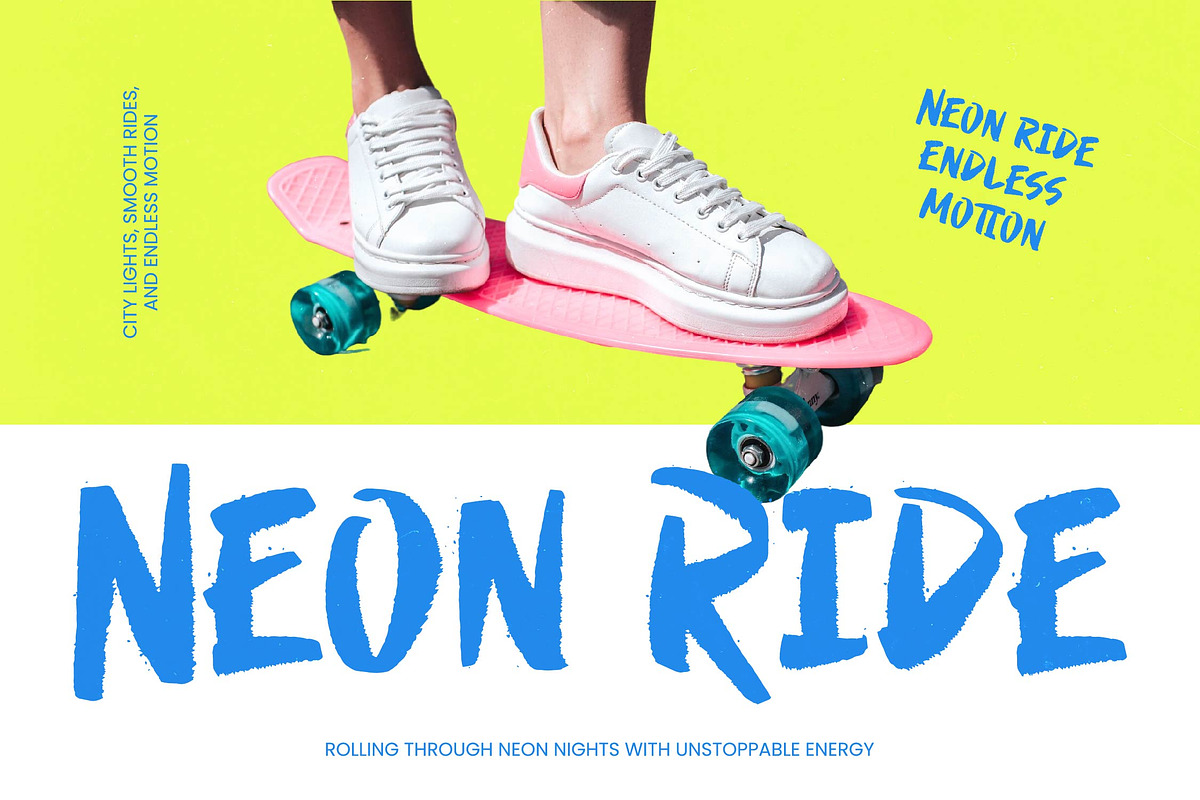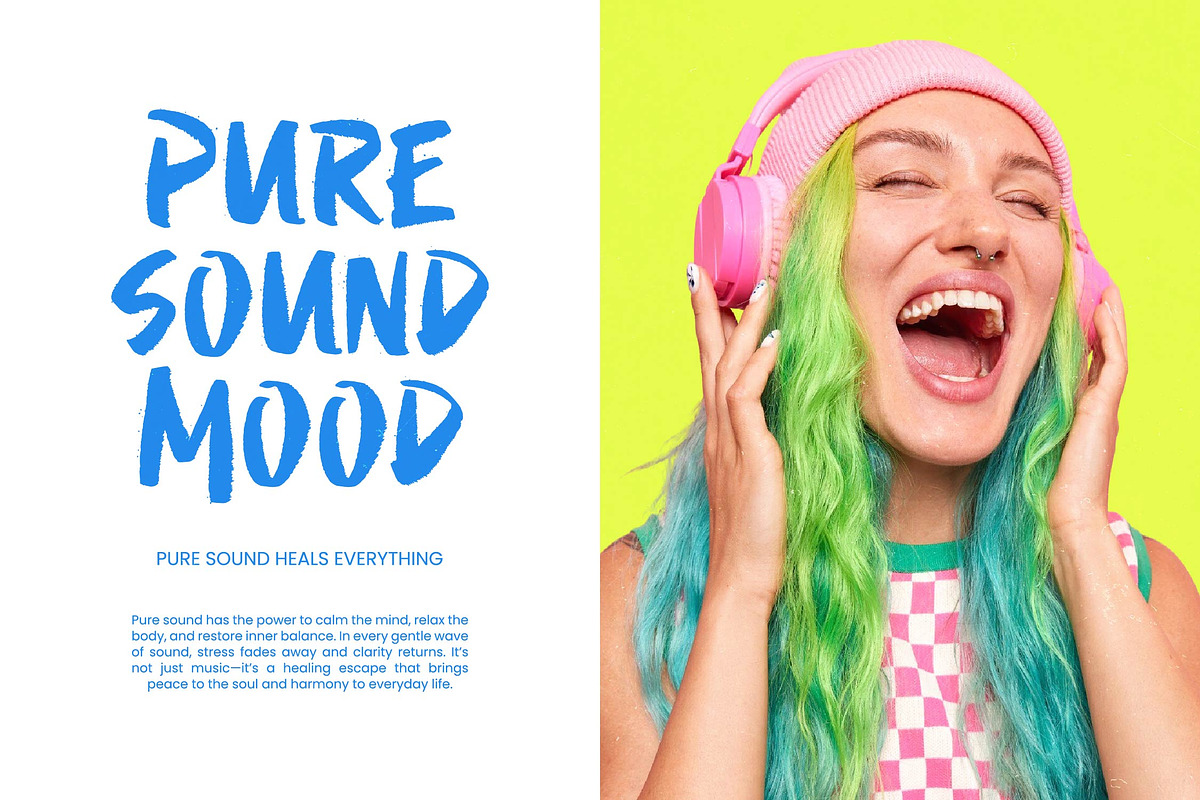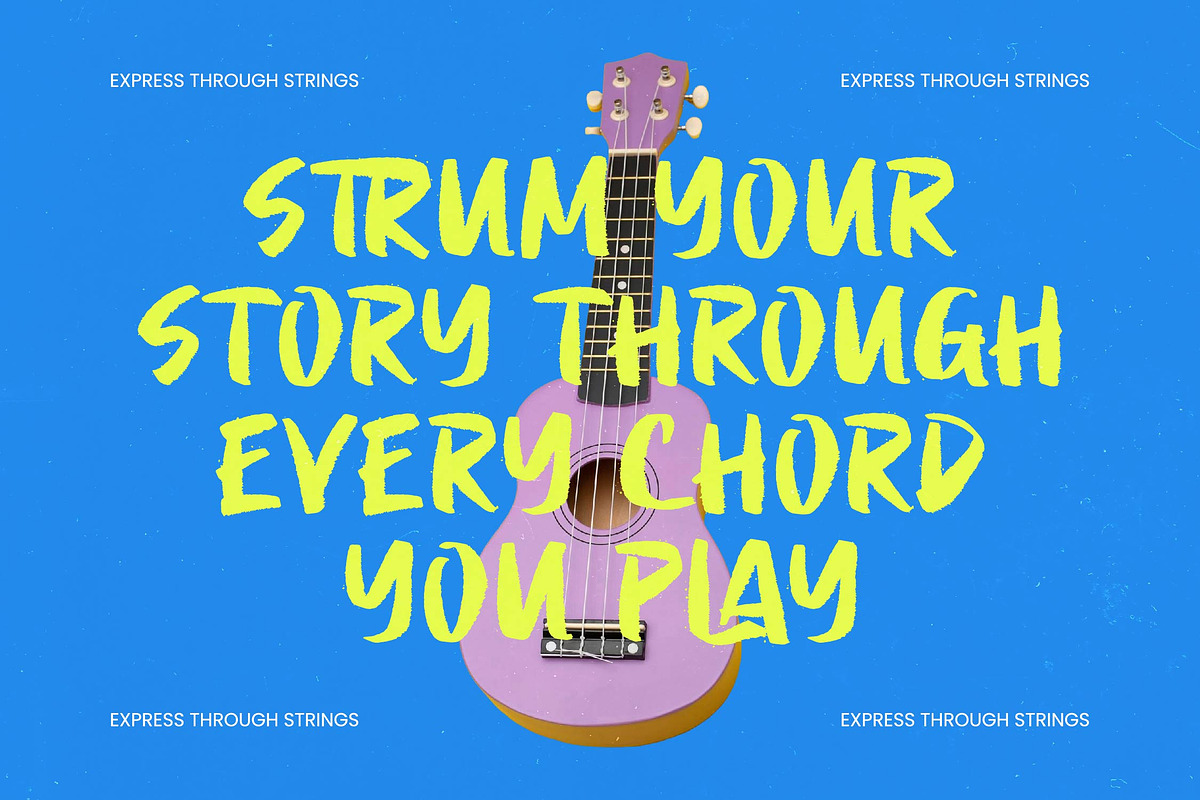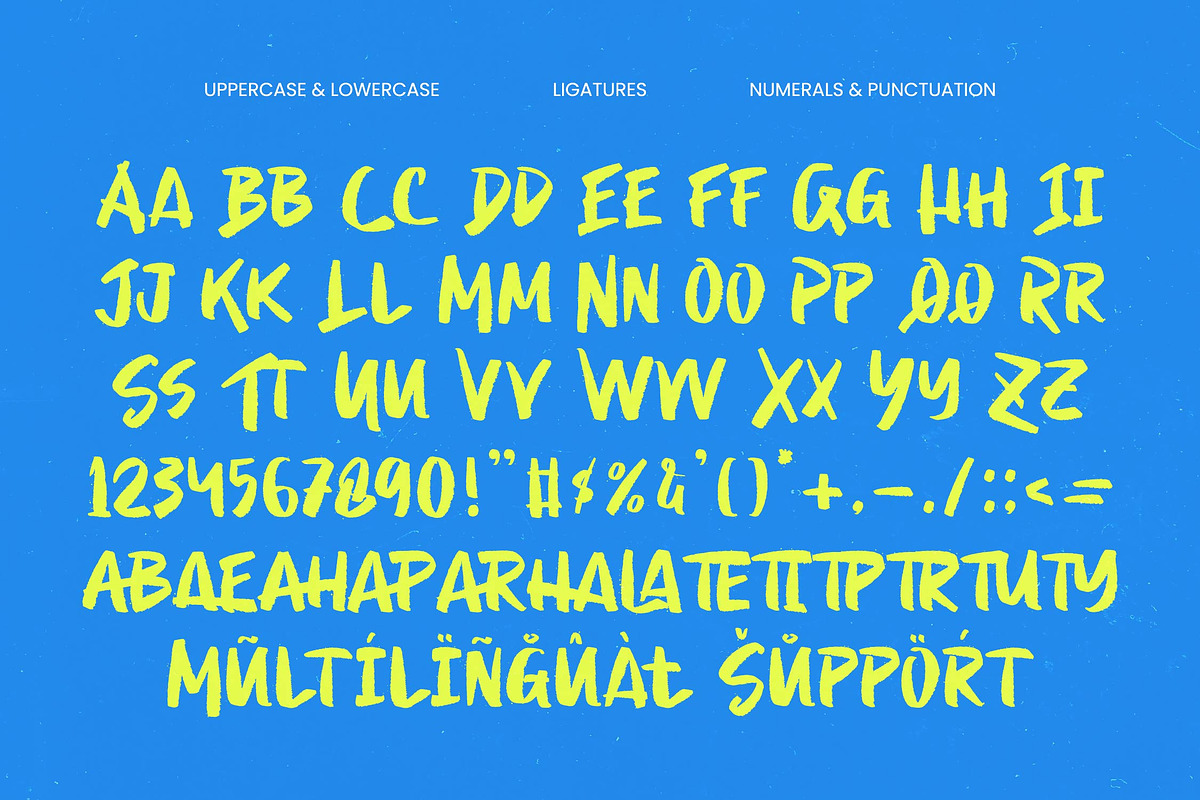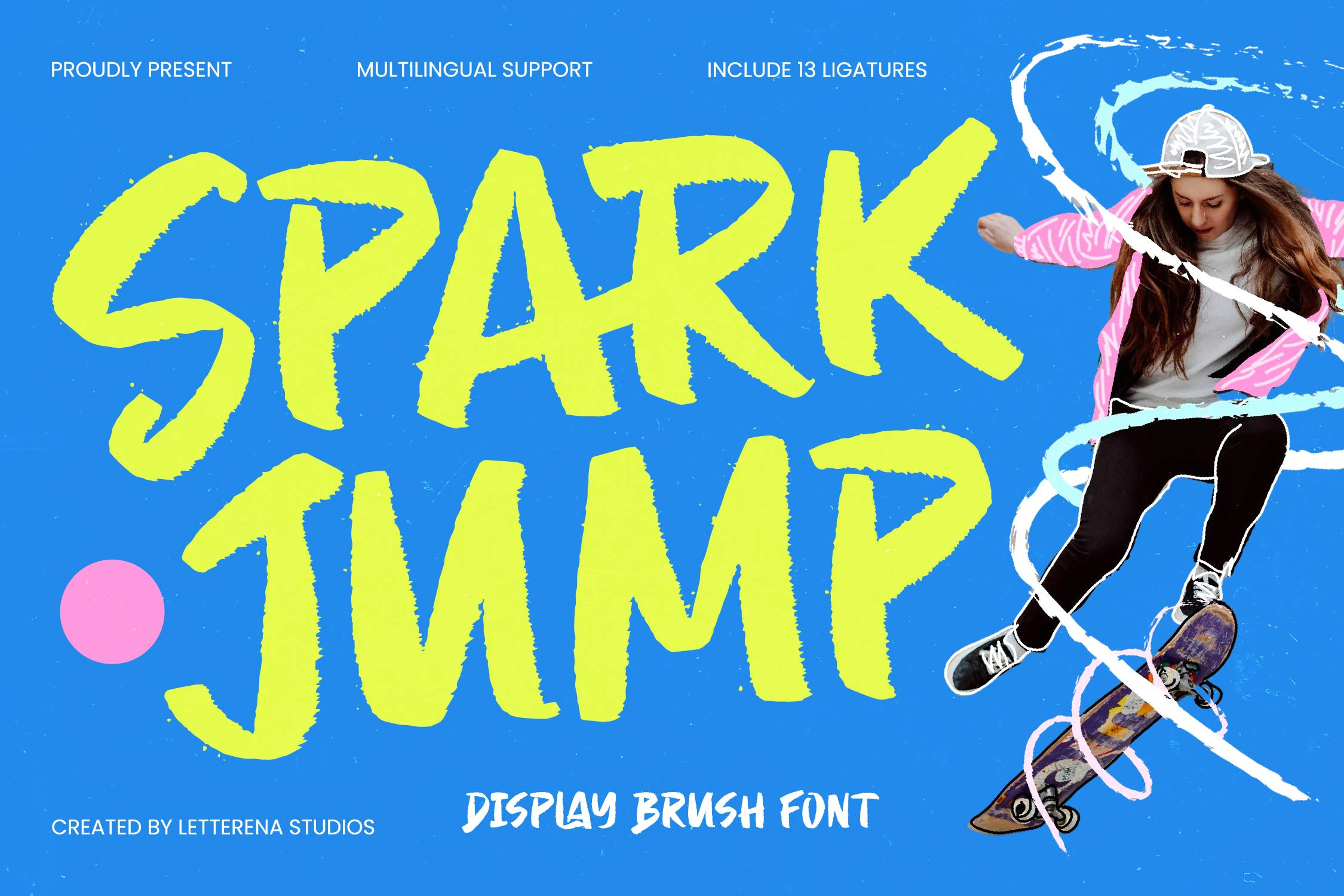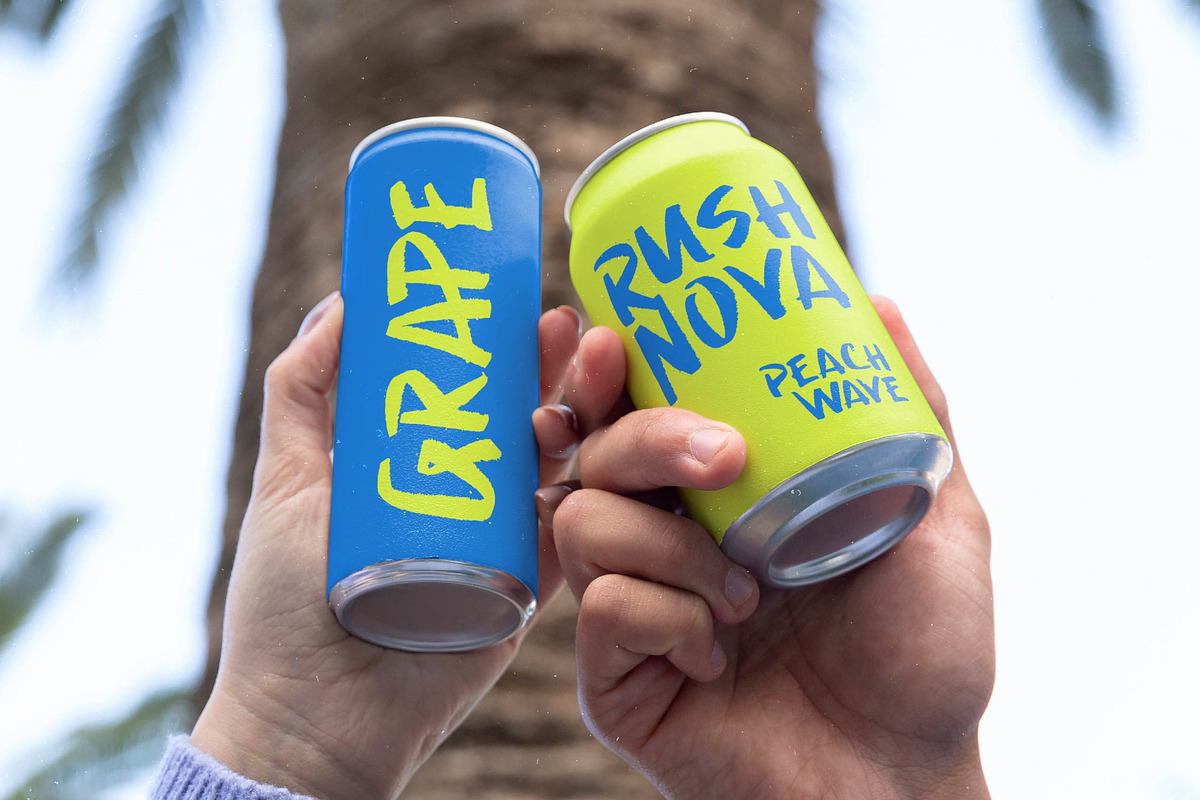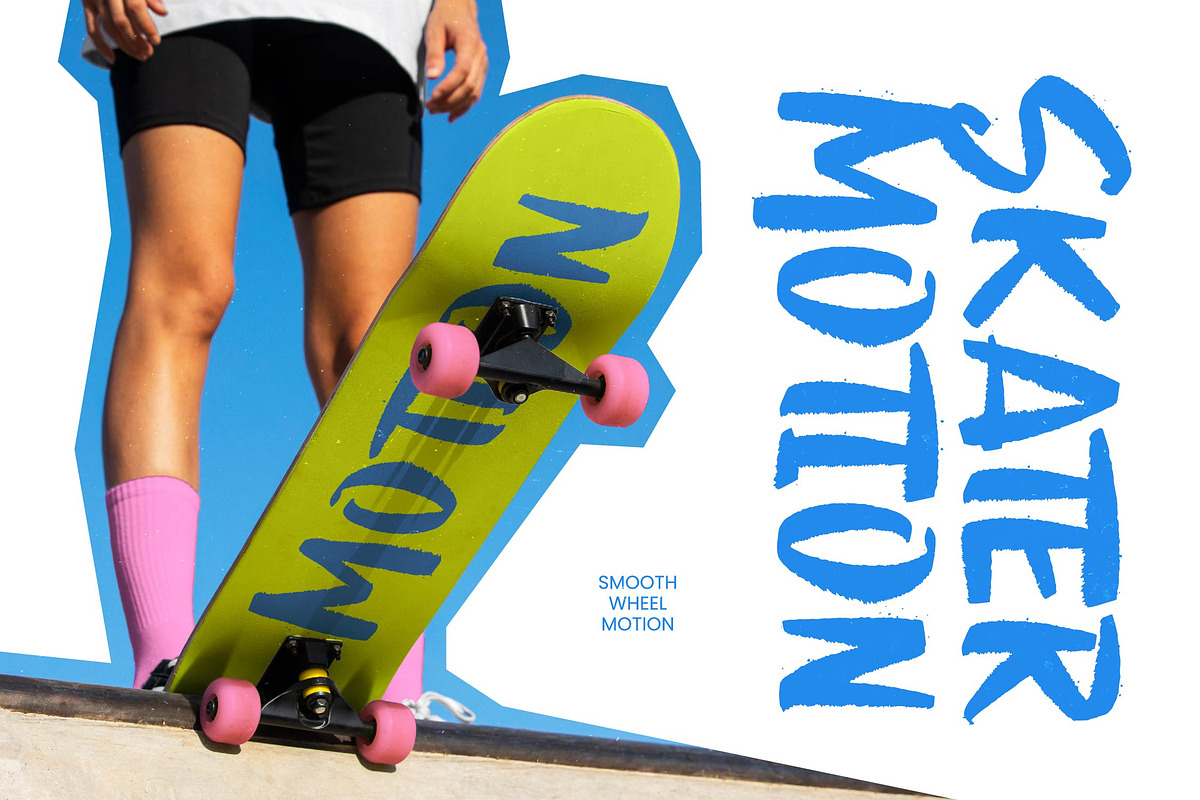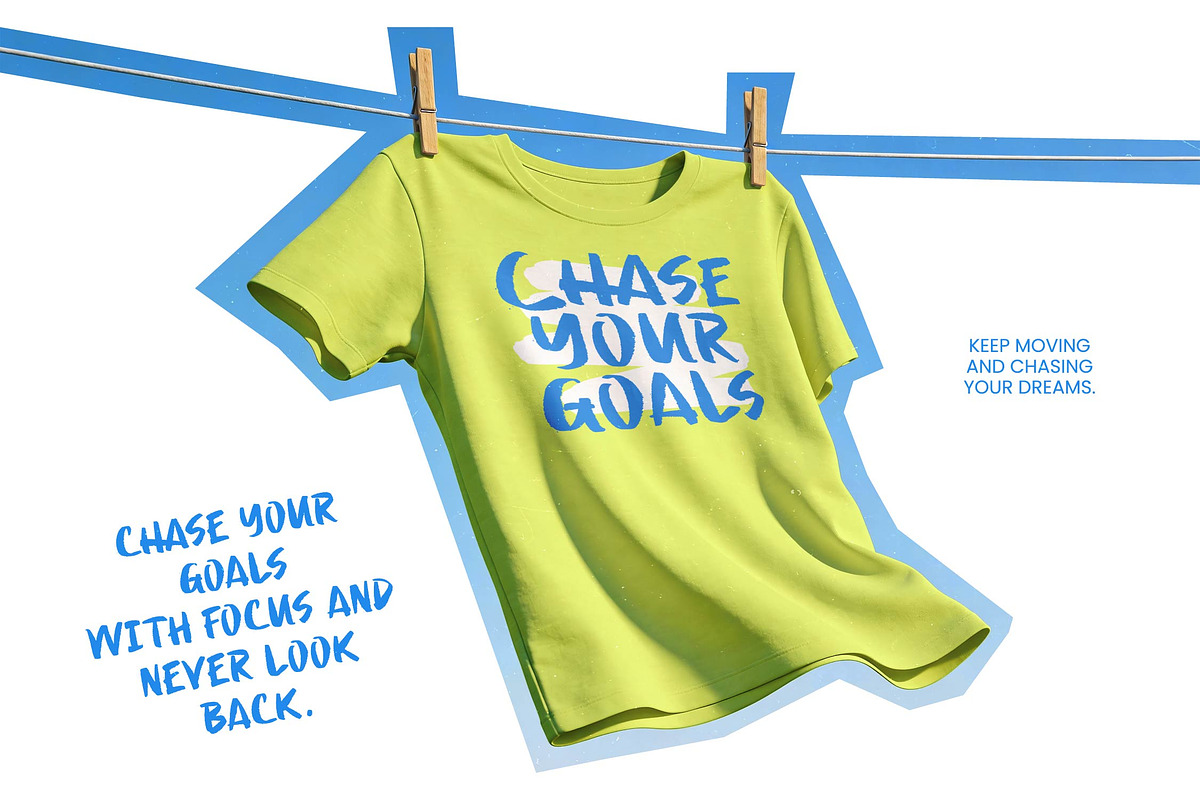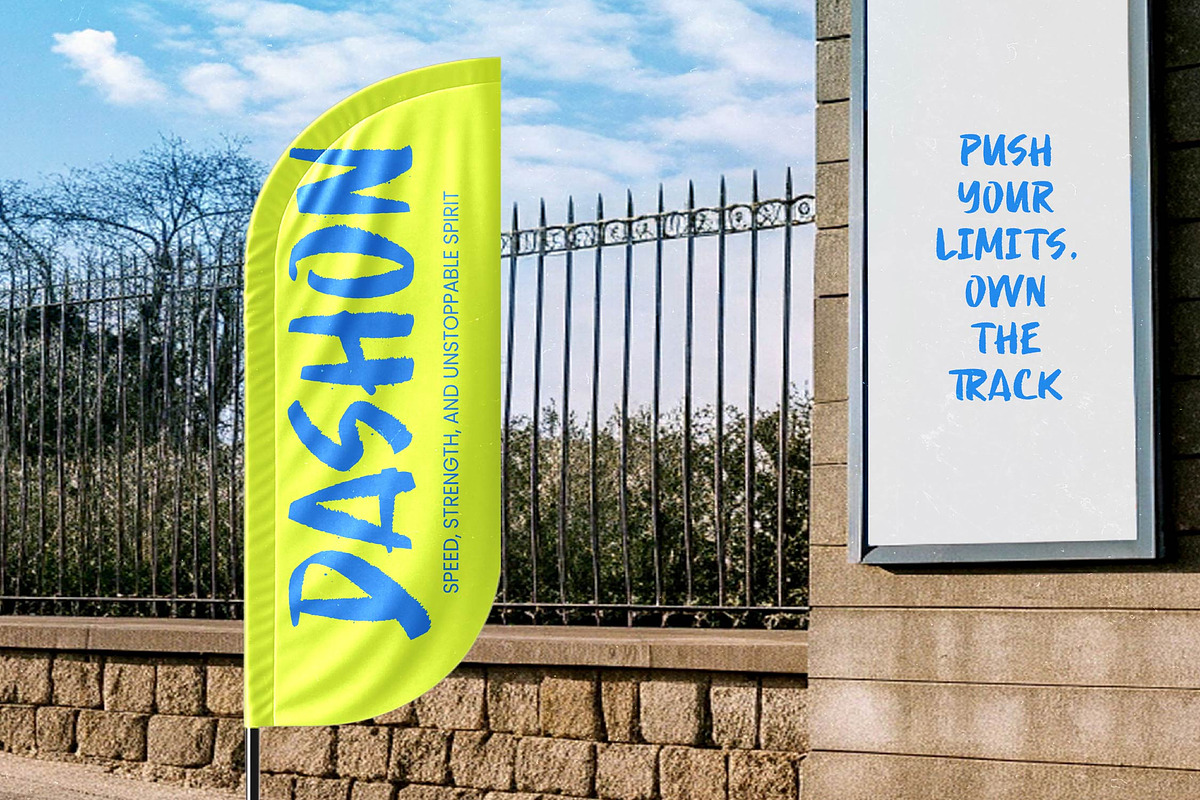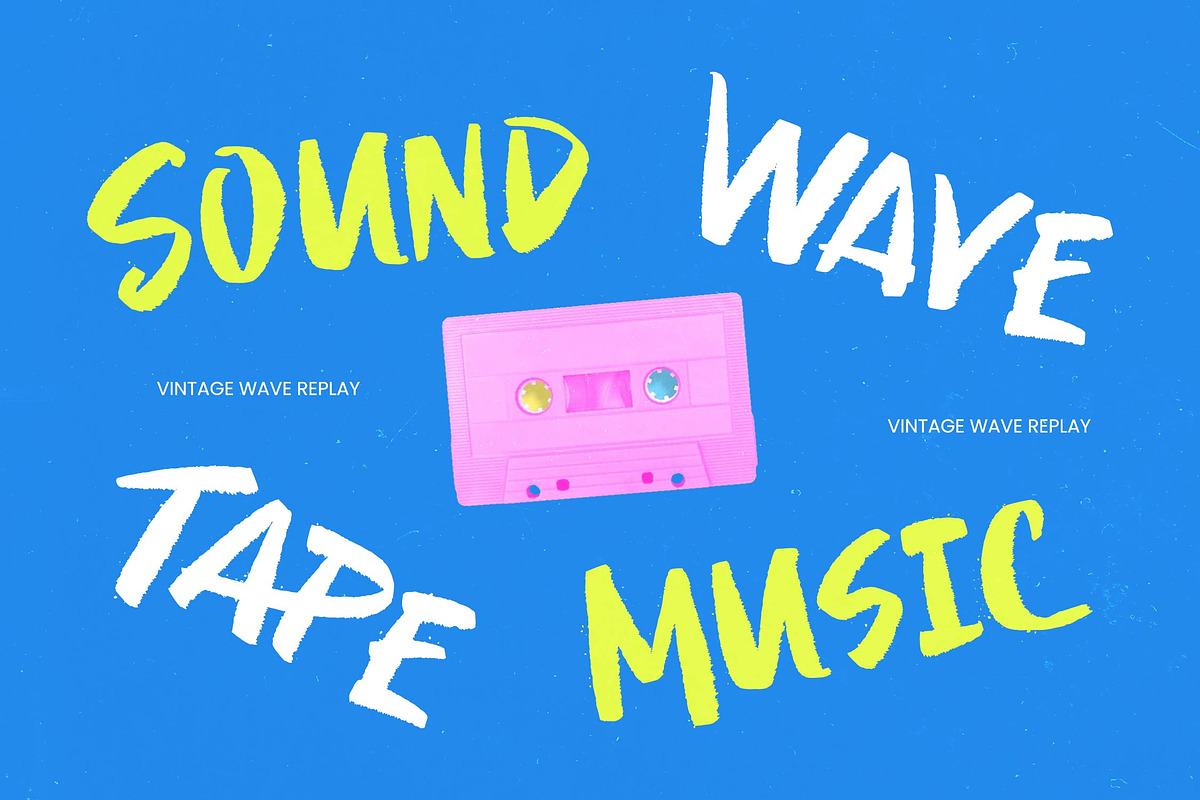
Spark Jump Display Brush Font
Spark Jump - Display Brush Font , Ignite your creative projects with the raw energy of Spark Jump - Display Brush Font, a powerhouse typeface designed to demand attention. This bold brush font captures an urban aesthetic with its dynamic strokes and handcrafted texture, offering a perfect blend of rebellion and commercial appeal. It is engineered for designers who need their headlines to resonate with a youthful, high-impact audience while maintaining a professional finish.
Global reach is effortless with this expansive and technically superior typeface. With its extensive multilingual support, Spark Jump - Display Brush Font adapts seamlessly across global markets, making it incredibly versatile for international projects and diverse branding campaigns. Whether you are targeting local niche markets or a worldwide demographic, its consistent legibility and inclusive character set ensure your message remains powerful and clear in any language.
The versatility of this font makes it the ultimate choice for a wide range of commercial applications. Spark Jump - Display Brush Font is perfect for streetwear branding, extreme sports graphics, and dynamic event posters where visual hierarchy is paramount. Beyond apparel, it excels in packaging design, social media marketing, and cinematic title sequences, providing a rugged yet refined edge to modern editorial layouts.
Experience the perfect fusion of artistic flair and functional design through every meticulous glyph. Spark Jump - Display Brush Font features 13 unique ligatures that enhance its natural brush feel, creating a custom hand-lettered look with minimal effort. Its high-contrast strokes and expressive personality provide an authentic street-style vibe, making it an essential asset for any creative professional’s toolkit looking to deliver memorable visual experiences.